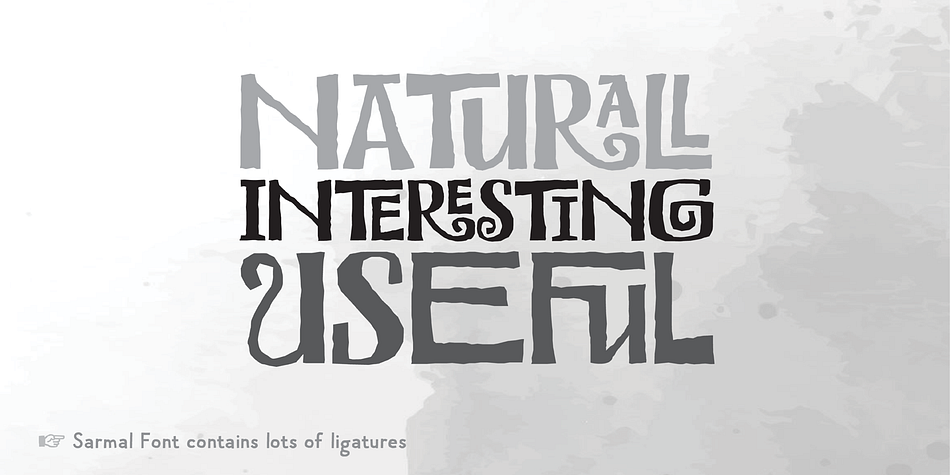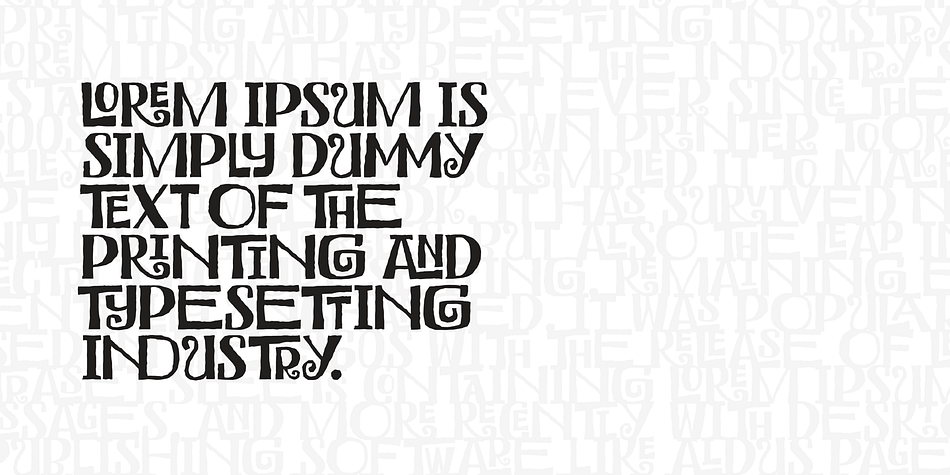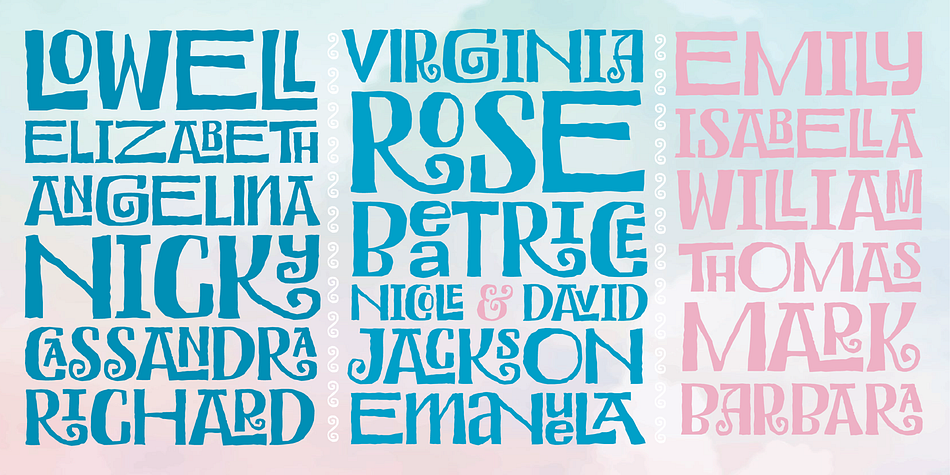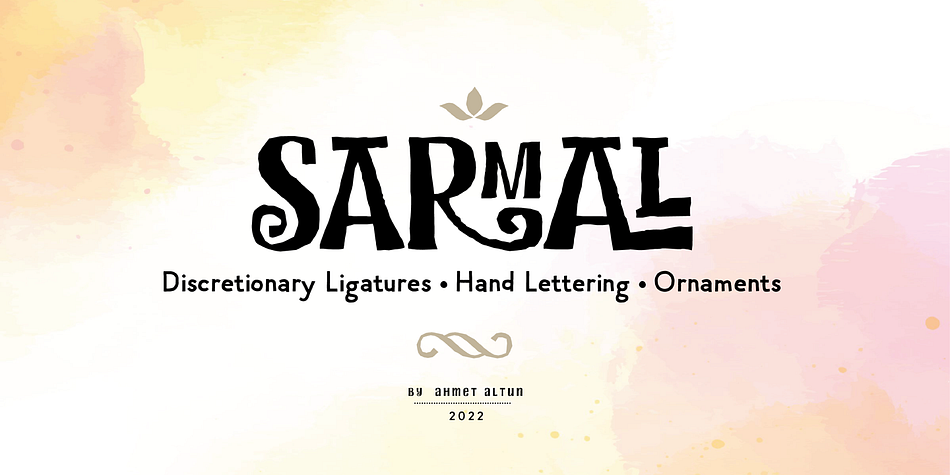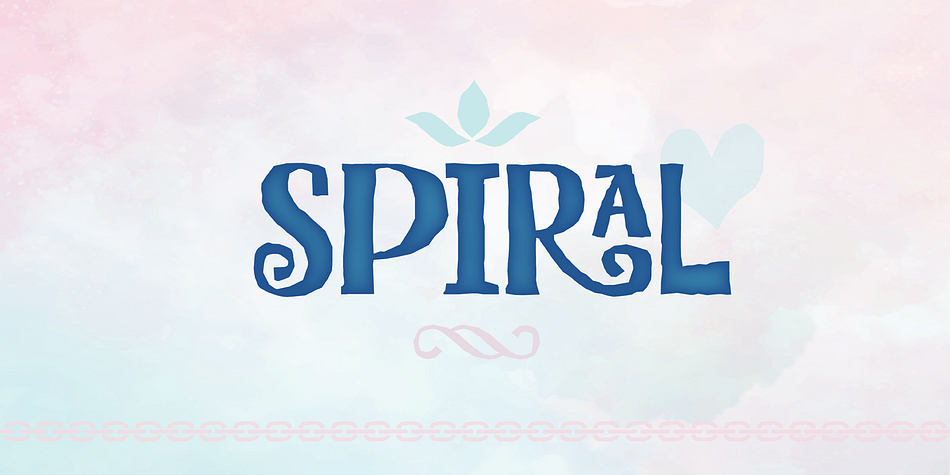
Designed by Ahmet Altun, Sarmal is a display and hand display font family published by Ahmet Altun.
The sarmal font contains ligatures that are functional and useful. It can be a stylish font choice for your posters, t-shirts, prints and many more works.